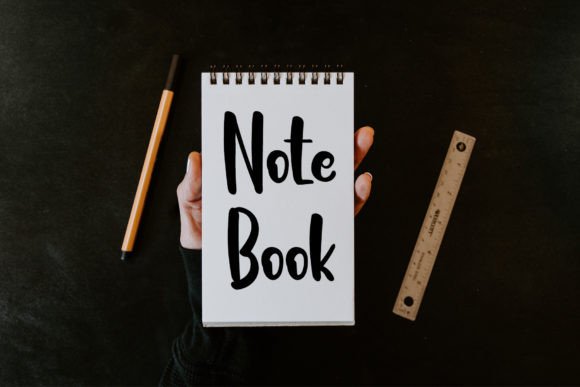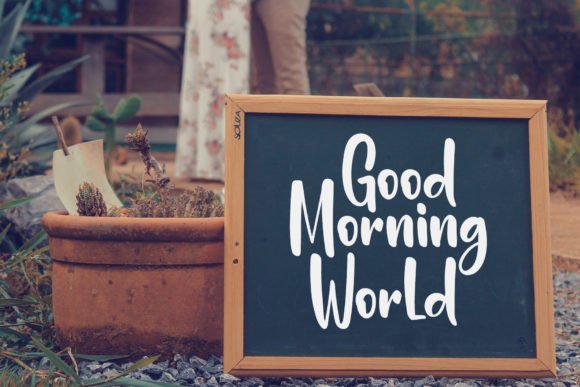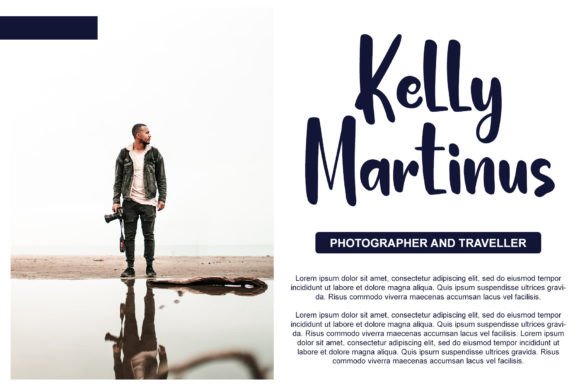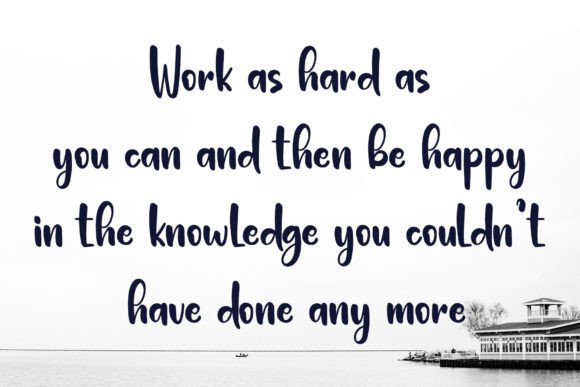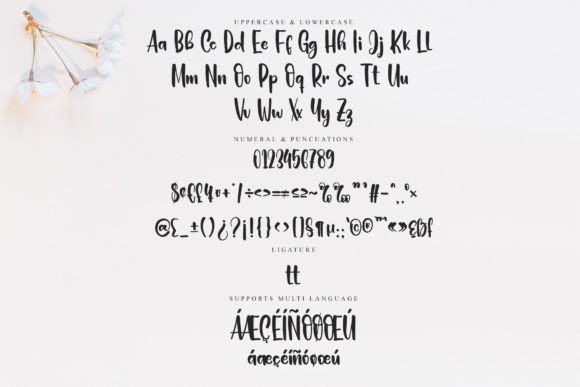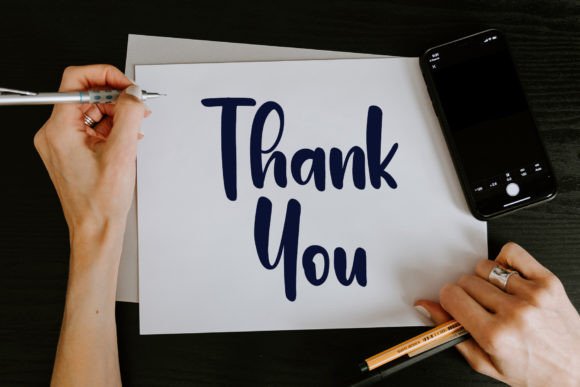
Introducing Backlist Font: Elevate Your Designs with a Beautiful Handwritten Display Font
Are you a designer, crafter, or DIY enthusiast looking for a unique and elegant font to add a personal touch to your projects? Look no further than Backlist Font, a stunning handwritten display font that’s perfect for magazines, crafts, and more. In this article, we’ll dive into the world of Backlist Font, exploring its features, benefits, and uses, and show you how to make the most of this beautiful font.
What is Backlist Font?
Backlist Font is a carefully crafted handwritten display font that’s designed to add a touch of elegance and sophistication to your designs. With its flowing lines, delicate curves, and whimsical flair, this font is perfect for creating eye-catching titles, headings, and captions that will make your projects stand out.
Whether you’re working on a magazine, a craft project, or a DIY tutorial, Backlist Font is the perfect choice for adding a personal touch to your designs. Its unique and elegant style makes it ideal for a wide range of applications, from fashion and beauty to lifestyle and entertainment.
Key Features of Backlist Font
So, what makes Backlist Font so special? Here are some of its key features:
- Handwritten style: Backlist Font is a genuine handwritten font, with a unique and personal touch that sets it apart from more traditional fonts.
- Elegant and refined: With its flowing lines and delicate curves, Backlist Font is the perfect choice for creating elegant and refined designs.
- Display font: Backlist Font is designed specifically as a display font, making it perfect for titles, headings, and captions.
- Perfect for magazines and crafts: Backlist Font is ideal for use in magazines, crafts, and other DIY projects where a personal touch is desired.
Benefits of Using Backlist Font
So, why should you choose Backlist Font for your next project? Here are just a few benefits of using this beautiful font:
- Adds a personal touch: Backlist Font adds a unique and personal touch to your designs, setting them apart from more generic and traditional fonts.
- Easy to read: Despite its elegant and refined style, Backlist Font is easy to read and understand, making it perfect for use in titles, headings, and captions.
- Versatile: Backlist Font can be used in a wide range of applications, from magazines and crafts to DIY tutorials and more.
- High-quality: Backlist Font is a high-quality font that’s designed to deliver exceptional results, even at large sizes.
How to Use Backlist Font
Using Backlist Font is easy! Here are a few tips to get you started:
- Pair it with other fonts: Backlist Font pairs perfectly with other fonts, making it easy to create stunning contrast and visual interest in your designs.
- Experiment with colors: Backlist Font looks great in a wide range of colors, from bold and bright to soft and pastel.
- Use it for titles and headings: Backlist Font is perfect for use in titles, headings, and captions, where its elegant and refined style can really shine.
In conclusion, Backlist Font is a beautiful handwritten display font that’s perfect for designers, crafters, and DIY enthusiasts looking to add a personal touch to their projects. With its elegant and refined style, versatile uses, and high-quality design, Backlist Font is a must-have font for anyone looking to elevate their designs and take them to the next level.